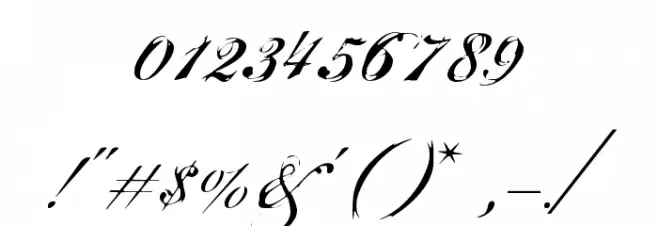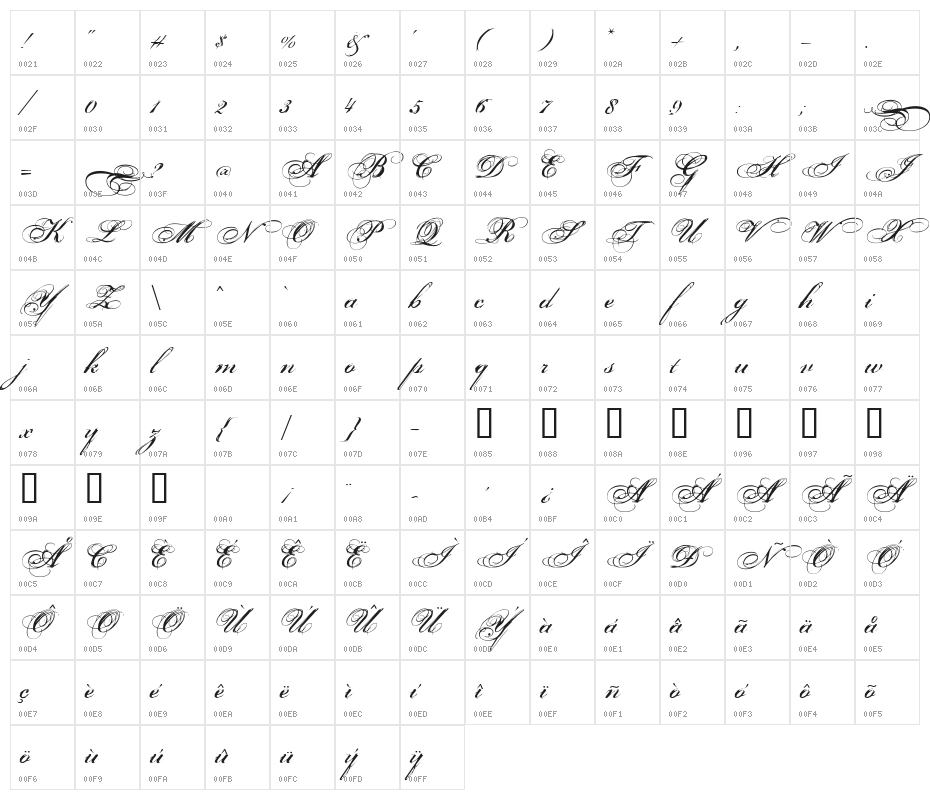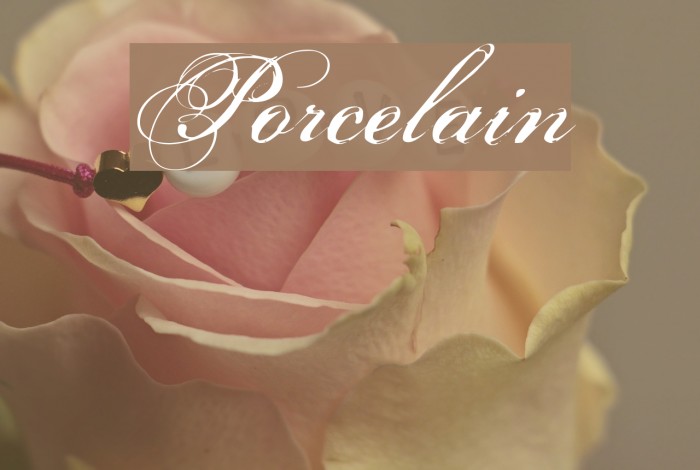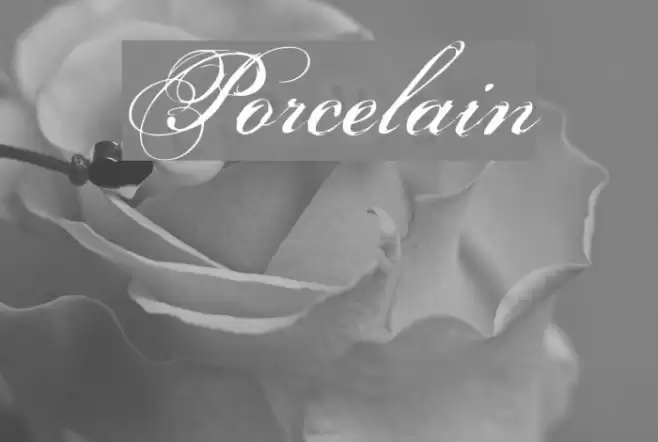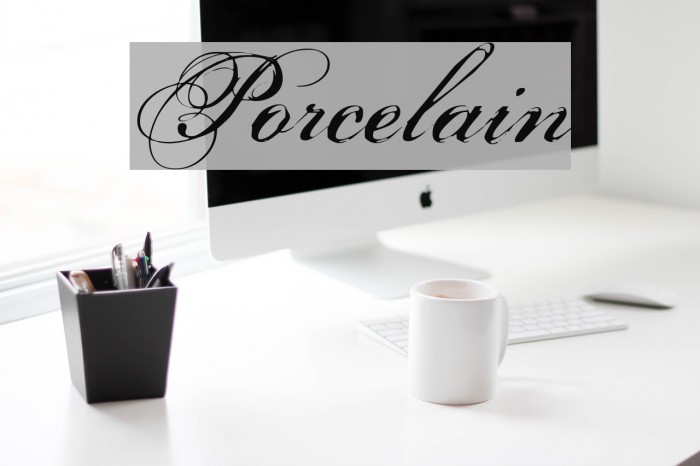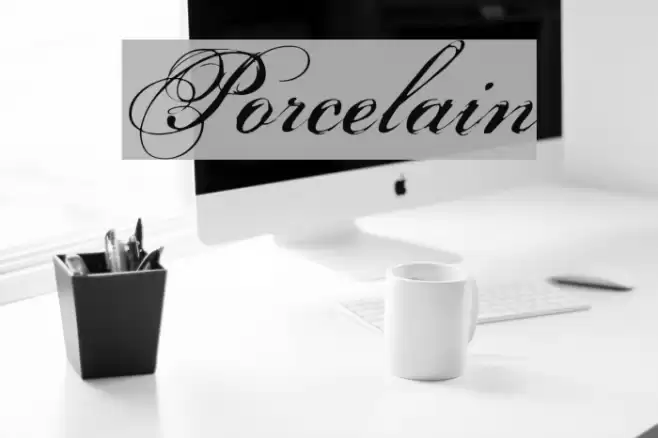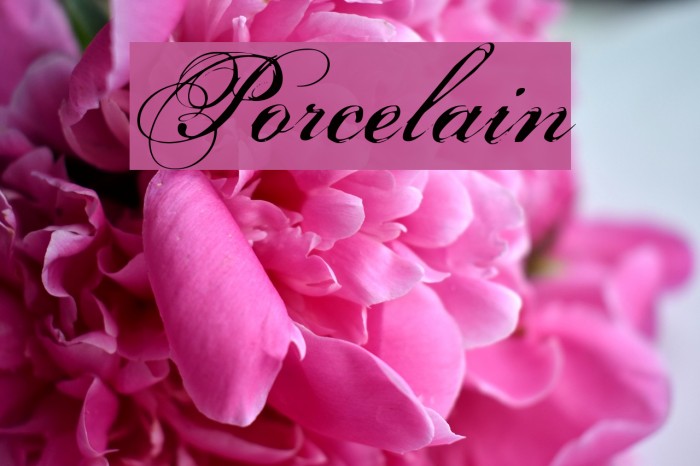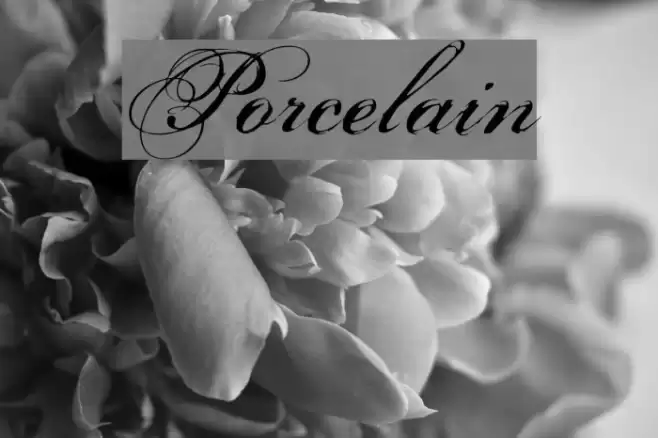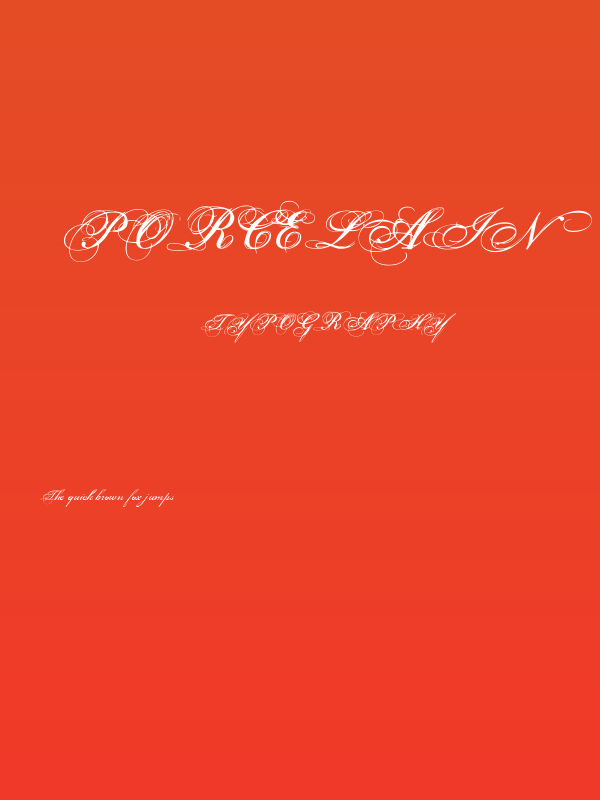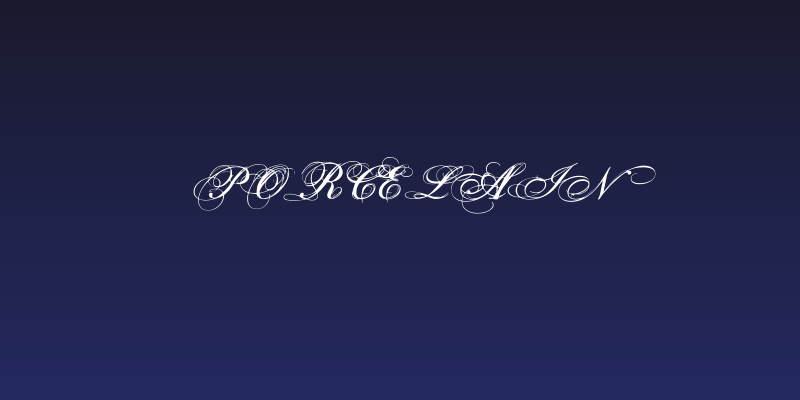
Porcelain Font
Porcelain Description
This elegant script font features intricate, flowing lines with a high level of detail and sophistication. Each character is designed with ornate flourishes, creating a sense of luxury and refinement. The uppercase letters are particularly elaborate, with sweeping curves and loops that extend beyond the baseline and cap height. The lowercase letters maintain a consistent style, with smooth transitions and a graceful appearance. The numerals and special characters are equally ornate, ensuring a cohesive look across all text. This font's high contrast between thick and thin strokes adds to its dramatic and stylish appearance, making it ideal for formal and decorative uses.
| Use Case | Logos, Invitations, Decorative Headlines |
| Proposed Projects | Ideal for wedding invitations, luxury branding, elegant stationery, and decorative headlines. |